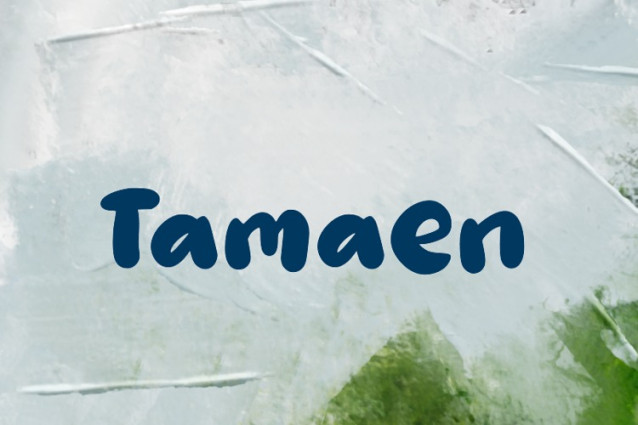
Tamaen Font
Tamaen Font is a chunky, comic, and cartoon display font. With its neat and joyful personality, this font will enhance any project you wish to create!